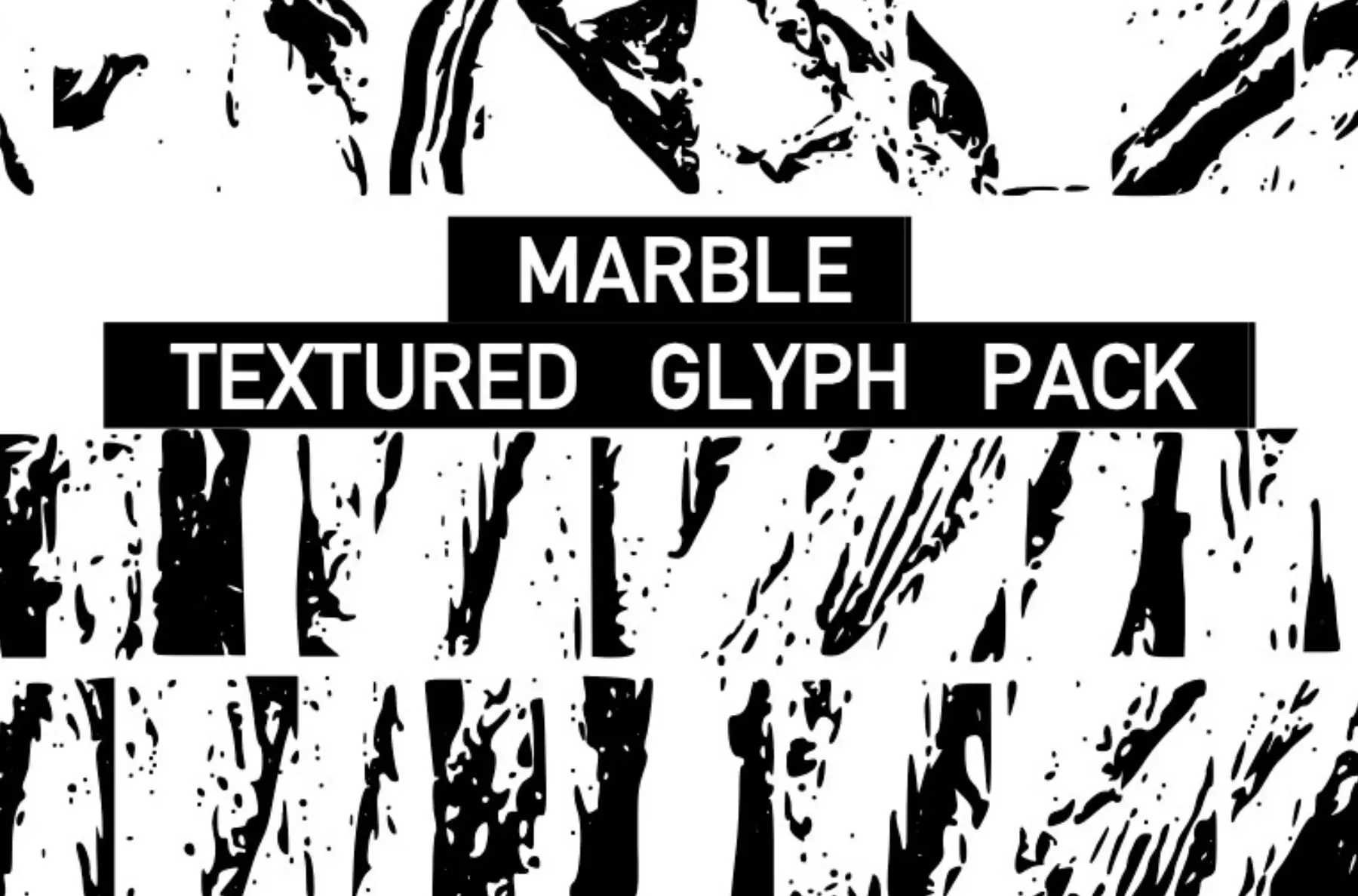
Texture Marble Font
Marble Glyph
Discover the elegance and versatility of the Texture Marble Glyph collection, a stunning array of marble-inspired textures. Perfect for infusing your design or craft projects with an air of sophistication. This comprehensive glyph pack offers a variety of intricate marble patterns.Texture Marble Glyph Collection